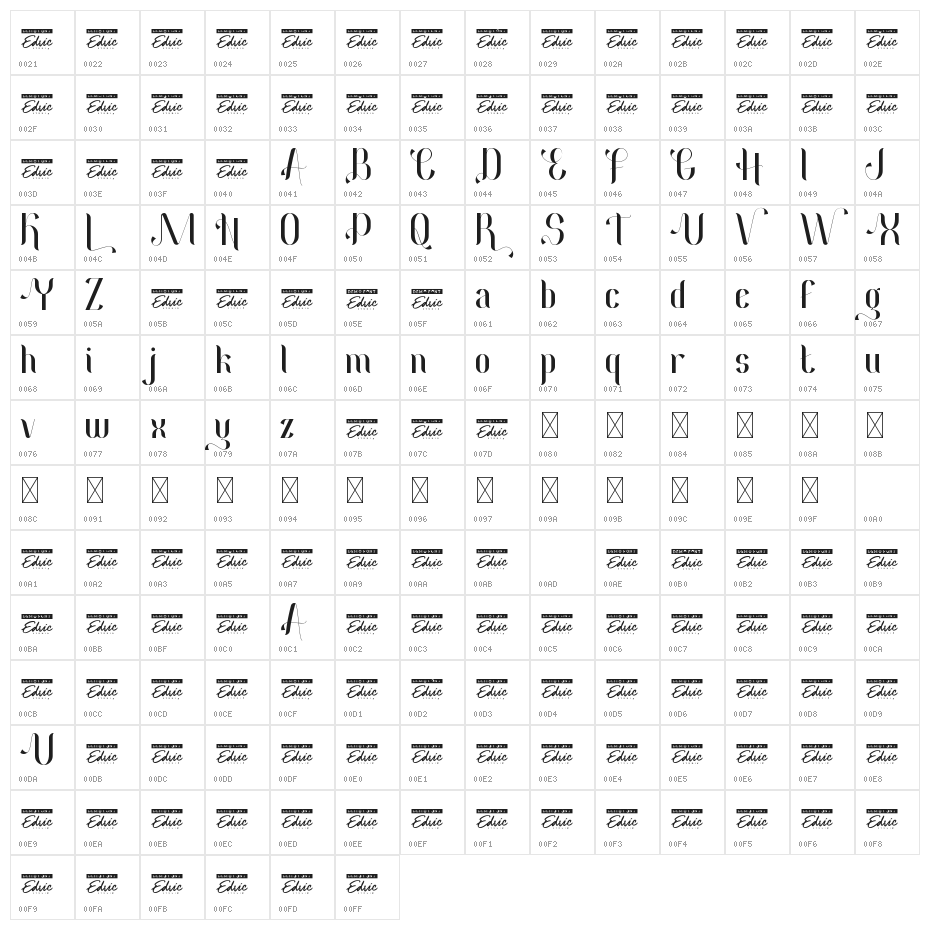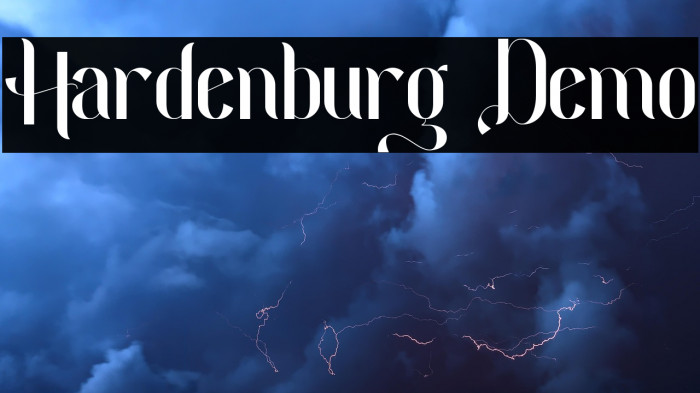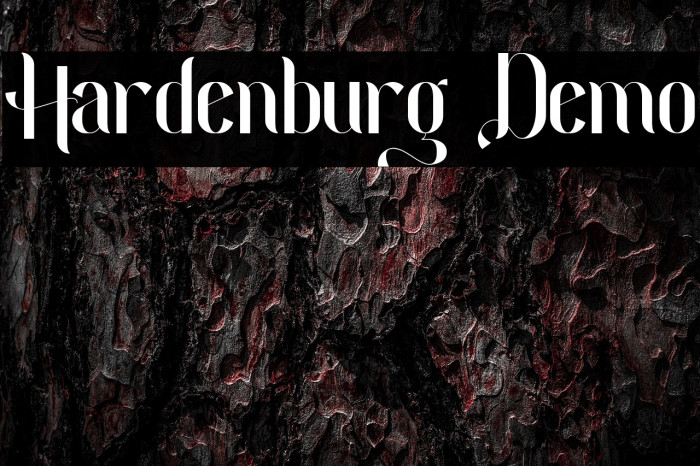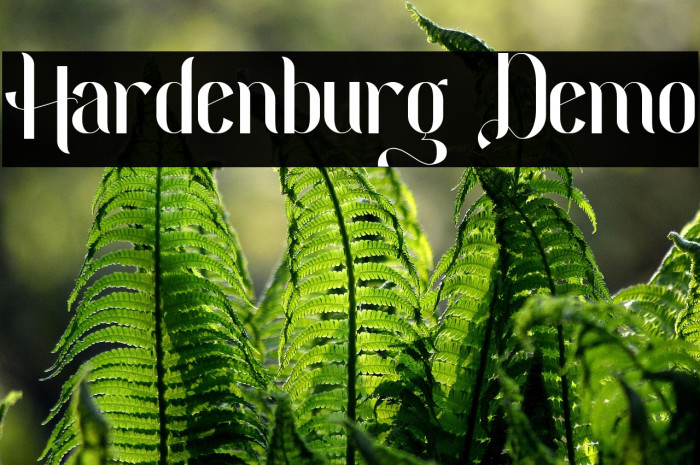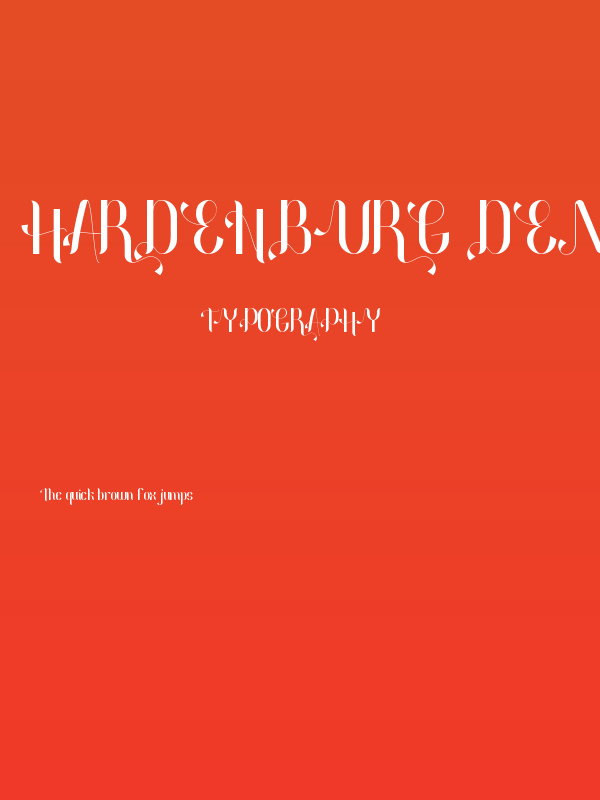
Hardenburg Demo Font
Hardenburg Demo Description
This font exhibits a unique blend of elegance and modernity, characterized by its decorative and flowing serifs. The uppercase letters feature intricate curves and swashes, giving them a sophisticated and artistic appearance. The lowercase letters maintain a consistent style with a slightly more restrained flourish, ensuring readability while retaining the font's distinctive charm. The numerals and special characters are designed to complement the overall aesthetic, making them suitable for a variety of creative applications. The font's high contrast between thick and thin strokes adds to its dramatic and eye-catching appeal.
| Proposed Projects | Ideal for wedding invitations, luxury branding, editorial design, and artistic posters. |